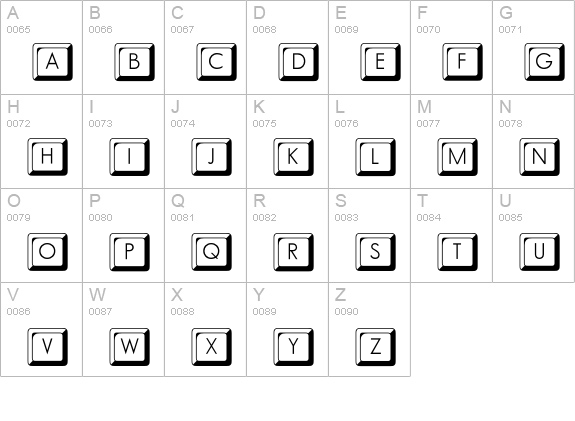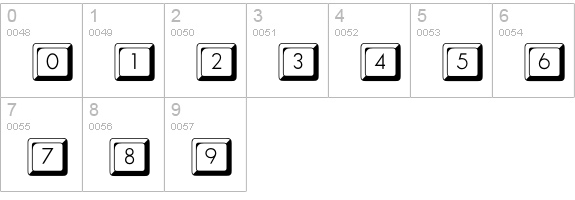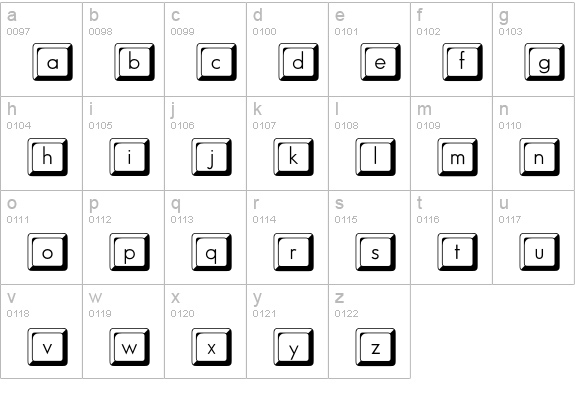
KeyCapsFLF Font Details
KeyCapsFLF is a captivating and versatile font that is perfect for adding a touch of creativity and uniqueness to your designs. With its bold and eye-catching characters, this font is sure to make a lasting impression on any project. KeyCapsFLF is not only aesthetically pleasing, but it is also incredibly practical. Each character is designed to resemble a keycap, giving your text an authentic and nostalgic feel. Whether you are designing a logo, creating a poster, or even crafting a website, this font will effortlessly enhance your work and make it stand out from the crowd. One of the most remarkable aspects of KeyCapsFLF is that it is available for free. Yes, you read that right! This font can be freely downloaded from FontsMarket.com, allowing you to access its stunning features without any cost. Now you can bring your creative visions to life without breaking the bank. With its wide range of characters and symbols, KeyCapsFLF offers endless possibilities for your design projects. From lowercase and uppercase letters to numbers and punctuation marks, this font has everything you need to make your text truly unique. Its versatility makes it suitable for various design styles, whether you prefer a modern and minimalist look or a vintage and retro aesthetic. KeyCapsFLF is designed with meticulous attention to detail, ensuring that each character is crisp and well-defined. Its clarity and readability make it an excellent choice for both digital and print designs. Whether you are creating a social media graphic, a business card, or a poster, this font will ensure that your message is effectively communicated. So why wait? Unlock your creativity with KeyCapsFLF font, freely available to download at FontsMarket.com. Embrace the exceptional quality and versatility of this font and elevate your designs to new heights. Whether you are a professional designer or a passionate hobbyist, KeyCapsFLF is the perfect font to add that extra oomph to your projects.